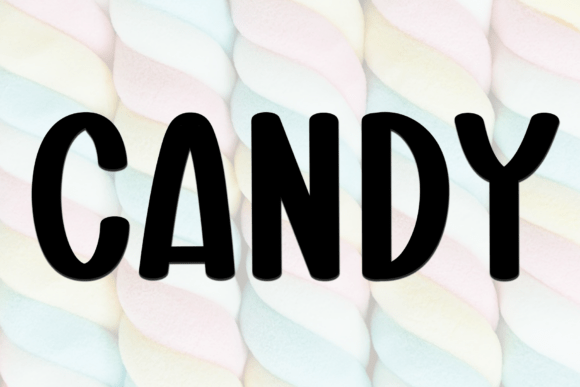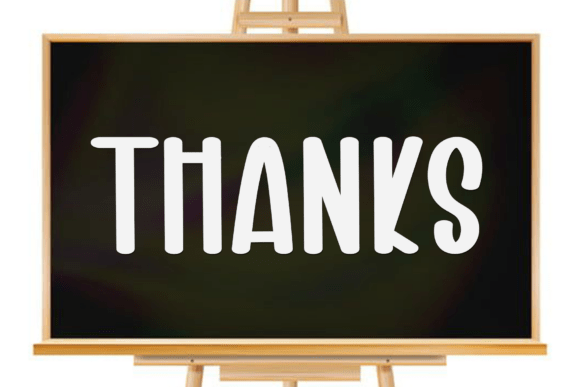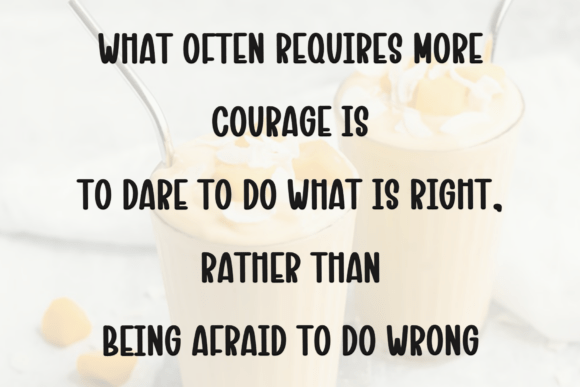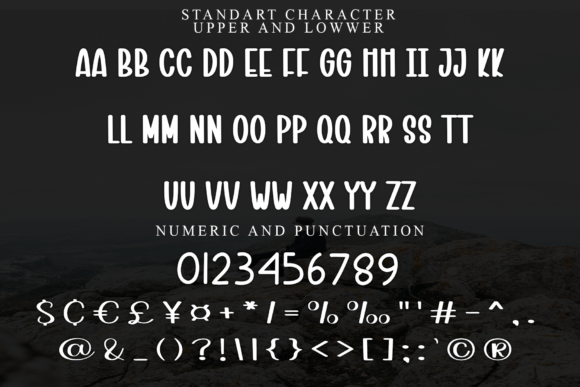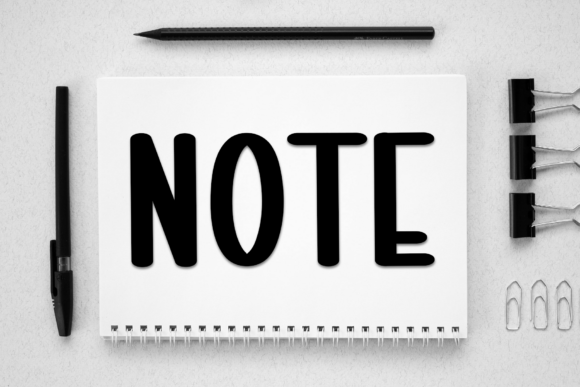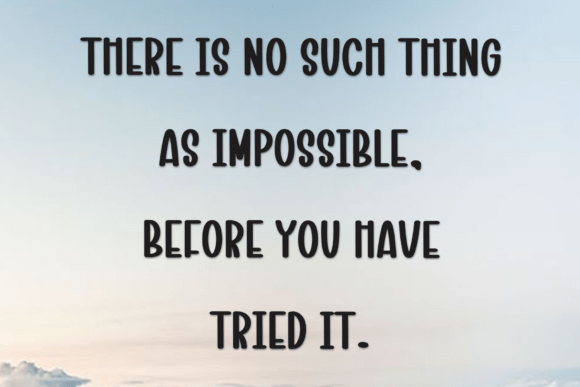
Discover the Charm of Antique Handmade Font: Elevate Your Designs with a Unique Touch
In the world of typography, few fonts manage to capture the essence of elegance and uniqueness as effectively as the Antique Handmade Font. This beautifully crafted font is designed with a soft, distinctive touch that sets it apart from more conventional typefaces. Its special character, marked by gentle strokes and a natural flow, makes it an invaluable asset for designers and crafters looking to infuse their projects with a sense of history and personality.
Aesthetic Appeal and Versatility
The Antique Handmade Font boasts a range of characters that contribute to its versatility. Whether you’re working on design projects, crafts, or any other form of creative work, this font is sure to enhance your output with its unique aesthetic appeal. Its compatibility with various applications, including both Windows and open-source platforms, ensures that it can be seamlessly integrated into your workflow, regardless of the software or operating system you use.
Ideal for a Wide Range of Products
One of the key advantages of the Antique Handmade Font is its adaptability. This natural font style is not limited to specific types of projects; rather, it can be used across a wide range of products and creative endeavors. From digital media and advertising to packaging and stationery, the Antique Handmade Font can add a touch of sophistication and charm that appeals to a broad audience.
Enhancing Your Designs
Incorporating the Antique Handmade Font into your designs can significantly elevate their visual appeal. The font’s distinctive strokes and soft texture give it a timeless quality that can make your designs stand out in a crowded marketplace. Whether you’re aiming to create a vintage look or simply want to add a unique element to your work, this font provides the perfect solution.
For designers and crafters, the Antique Handmade Font is a treasure trove of creative possibilities. It allows for a high degree of flexibility and experimentation, enabling you to push the boundaries of your projects and explore new ideas. The font’s ability to convey a sense of handmade craftsmanship makes it particularly well-suited for projects that value authenticity and personal touch.
Key Features of Antique Handmade Font
- Unique and Soft Texture: The font’s soft texture and unique strokes give it a special character that sets it apart from other typefaces.
- Versatile and Meaningful: Its distinctive design makes it meaningful and versatile for use in a variety of projects.
- Variety of Characters: Offers a range of characters, providing flexibility and creativity for designers and crafters.
- Natural Font Style: Its natural flow and strokes contribute to its aesthetic appeal, making it suitable for a wide range of creative works.
The Antique Handmade Font is a remarkable addition to any designer’s or crafter’s toolkit. Its unique blend of elegance, versatility, and charm makes it an ideal choice for those looking to add a personal touch to their projects. With its wide compatibility, range of characters, and timeless aesthetic appeal, this font is poised to become a staple in the world of design and crafting. Embrace the beauty of the Antique Handmade Font and discover new possibilities for your creative endeavors.
Whether you’re a seasoned professional or an enthusiastic hobbyist, the Antique Handmade Font invites you to explore new horizons of creativity and design. Its ability to transcend conventional boundaries and appeal to a diverse audience makes it a valuable resource for anyone looking to make their mark in the world of art and design.